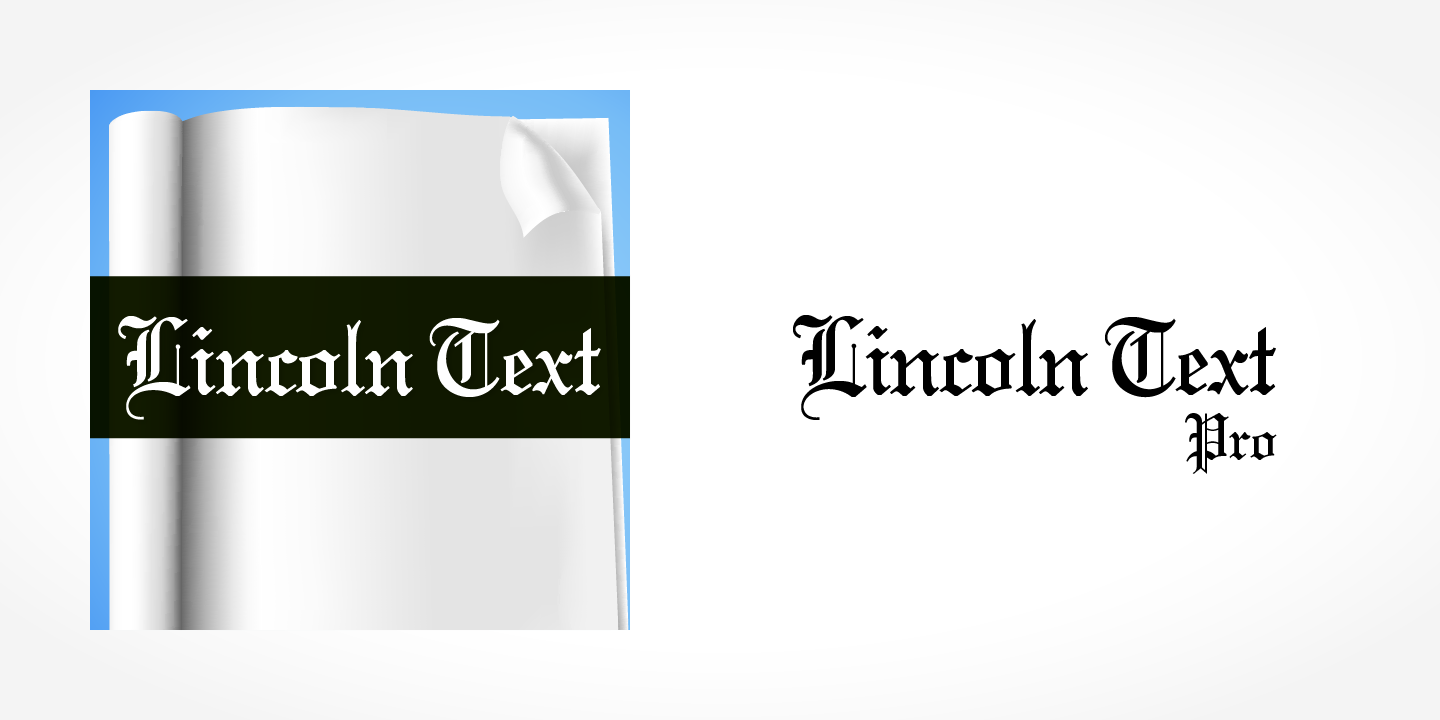
Lincoln Text Pro Font is perfect for constitutional law firm branding, presidential library communications, historical preservation society documents, American heritage museum exhibitions, distinguished government institution materials, scholarly presidential biography publications, constitutional convention educational resources, civil rights organization presentations, democratic institution graphics, and authoritative American history marketing campaigns.
What makes Lincoln Text Pro Font so exciting is its extraordinary ability to embody the profound dignity and moral authority of America's greatest president through systematically refined letterforms that seem crafted with the same careful deliberation and principled commitment that guided Abraham Lincoln through the nation's most challenging period and blessed with the kind of institutional gravitas that transforms ordinary communication into expressions of democratic ideals and constitutional wisdom. This font captures the essence of presidential leadership and constitutional authority, featuring dignifiedly proportioned characters that appear designed to carry the weight of historic proclamations and the enduring principles that have guided American democracy through its greatest trials. The presidentially crafted letter shapes create an atmosphere of democratic dignity and constitutional reverence, making every word feel like it honors the legacy of leaders who understood that true greatness lies in service to principles larger than oneself and the preservation of democratic institutions for future generations.
The Lincoln Text Pro Font family includes Light, Regular, Medium, Bold, and Presidential variations, along with corresponding italic styles and constitutional decorative elements. Each style maintains the font's distinctive presidential character while offering complete versatility for different institutional applications, from subtle historical documentation to commanding ceremonial headlines that celebrate democratic achievements and constitutional principles.
This distinguished typeface brings authentic presidential authority aesthetics to contemporary design projects. The Lincoln Text Pro Font Free Download provides designers with an exceptional tool to create memorable brand identities that communicate institutional dignity, democratic values, and presidential authority. Whether you're developing government institution branding, designing historical preservation materials, or creating constitutional education communications, this font delivers unmatched presidential credibility and democratic appeal.
The expertly crafted letterforms in Lincoln Text Pro Font feature constitutional proportions and institutional clarity that ensure optimal performance across all democratic applications while expressing the principled leadership and moral authority that define successful democratic governance. Each character has been designed to maintain perfect legibility while conveying the presidential dignity and constitutional wisdom that separate true statesmanship from mere political ambition. The font's distinctive personality makes it ideal for applications requiring genuine democratic authority and presidential credibility.
Government and educational professionals appreciate how Lincoln Text Pro Font effortlessly communicates institutional integrity, democratic values, and presidential excellence while serving citizens and students seeking authentic understanding of the principles and personalities that have shaped American democracy and constitutional government. The comprehensive glyph set includes constitutional symbols, presidential notation, democratic indicators, and extensive international language support, ensuring global compatibility while maintaining its distinctive Lincoln identity. This makes it an invaluable resource for government institutions, educational organizations, historical societies, and any institution seeking typography that embodies the fundamental American values of democratic governance, constitutional law, and the kind of presidential leadership that reminds us that true greatness in public service comes from the humble recognition that elected officials are servants of the people and guardians of principles that transcend any individual administration, requiring leaders who understand that their highest calling is to preserve and strengthen democratic institutions that enable government of the people, by the people, and for the people to flourish through the patient application of constitutional wisdom and the moral courage to do what is right even when it is difficult, ensuring that democracy remains a living testament to the enduring human aspiration for freedom, equality, and justice under law.